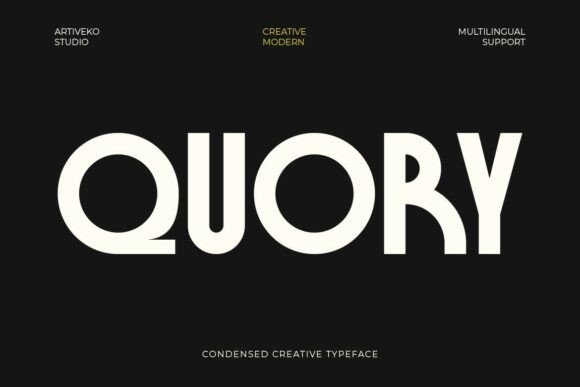
Quory: A Retro-Inspired Sans Serif Font for Bold Editorial Design
Quory in a Lifestyle Blog Redesign: Setting the Tone
When redesigning a lifestyle blog, the font choice plays a pivotal role in shaping the editorial mood. Quory, a retro-inspired condensed sans serif typeface, brings a unique combination of vintage charm and contemporary clarity to the layout. Its tall proportions and narrow structure make it ideal for headers and titles that need to stand out without taking up too much visual space. Using Quory for the blog’s main title and category headers gave the redesign a distinctive personality—something between mid-century modern design and clean digital readability.
Quory for Ebook Titles and Chapter Openers
For a recipe ebook I recently designed, Quory became the go-to font for chapter titles and feature spreads. Its bold presence and retro styling added a sense of warmth and craftsmanship that complemented the organic feel of the content. Unlike many sans serif fonts that lean too modern or sterile, Quory retains character while maintaining clarity. When exported as a PDF, the font held up beautifully across devices, from desktop to mobile, ensuring the ebook retained its editorial appeal without sacrificing legibility.
Quory in Wedding Guides and Elegant Branding
Wedding guides and event-based publications benefit from fonts that carry both sophistication and individuality. Quory’s tall x-height and condensed form lend it a refined edge, making it a strong contender for headers in wedding planning guides or boutique branding materials. Paired with a soft serif font for body copy, Quory creates a clear visual hierarchy while keeping the design cohesive and elegant. Whether used for a section title in a digital magazine or a callout in a printable seating chart, Quory delivers a modern-retro balance that feels intentional and curated.
Quory for Newsletters and Social Media Graphics
In a recent email campaign for a creative coaching newsletter, I tested Quory for the header and featured quote. The font’s narrow structure allowed for tighter spacing in the layout, which was especially helpful for mobile-optimized email templates. On social media graphics, Quory’s boldness made it a standout choice for quote images and Instagram story headers. As a display font, it’s ideal for grabbing attention without overwhelming the reader. Just be mindful of using it at smaller sizes—Quory shines best when given room to breathe.
Font Pairing and Editorial Consistency with Quory
One of the most rewarding parts of using Quory was exploring font pairings that enhanced the overall editorial design. Since Quory is best suited for titles, pull quotes, and headers, I paired it with a clean, readable sans serif for captions and body text. This contrast helped maintain visual rhythm while ensuring the content remained scannable. For more formal sections or longer reads, switching to a classic serif font created a nice balance between expressive headers and grounded body copy. Quory’s retro styling didn’t clash—it enhanced the design by adding editorial depth without sacrificing readability.